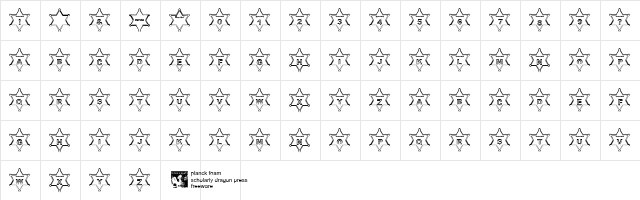
pf_Marshal_D_Orr-outline Regular Font Preview
pf_Marshal_D_Orr-outline Regular
pf_Marshal_D_Orr-outline Regular Font Details
| Designer | David E. Howerton |
Design Context for pf_Marshal_D_Orr-outline Typeface
pf_Marshal_D_Orr-outline brings ornamental detail and strong personality to headlines and identities, where visual impact matters more than quiet functionality.